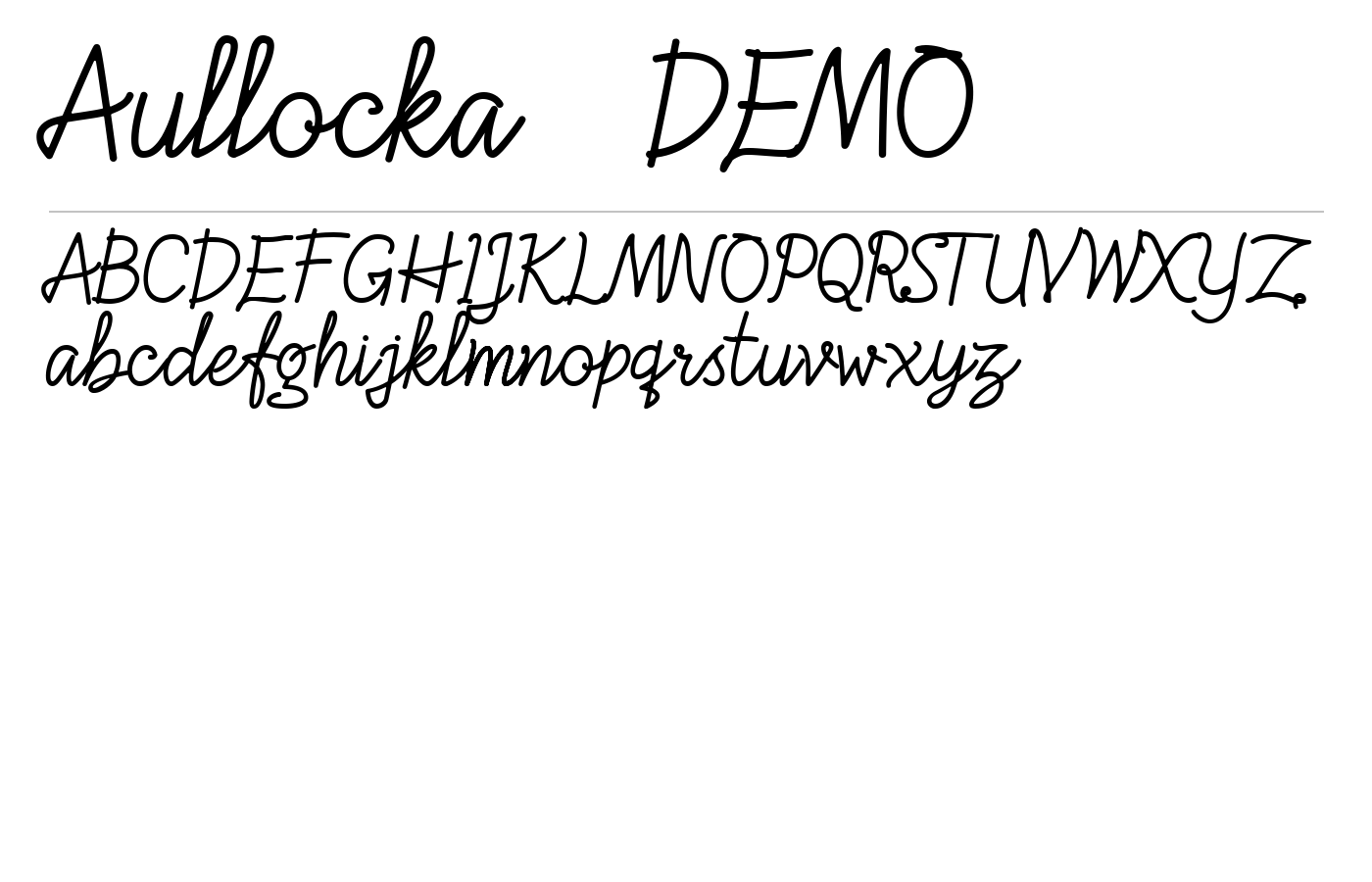
Aullocka DEMO is a lively and informal script font that mimics natural handwriting with a playful yet slightly elegant touch. Its thin, consistent strokes and flowing, connected letterforms create an approachable, creative feel, making it ideal for casual branding, invitations, and personal projects where a friendly and authentic vibe is desired. This font works well in headlines, logos, and social media designs that aim to communicate warmth and personality.
Aullocka - DEMO Font
About Aullocka - DEMO Font